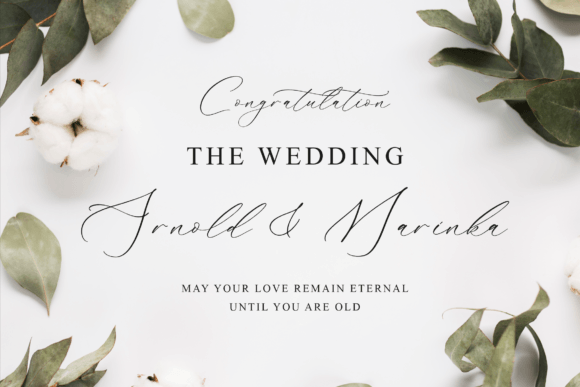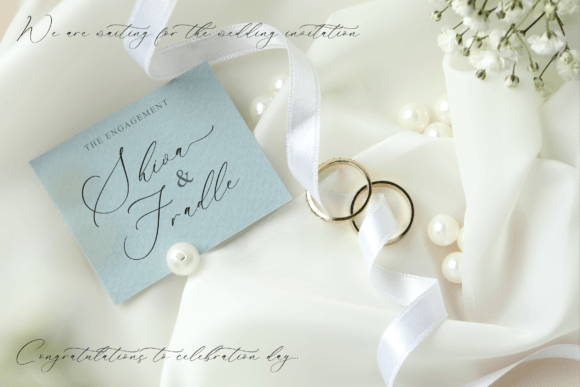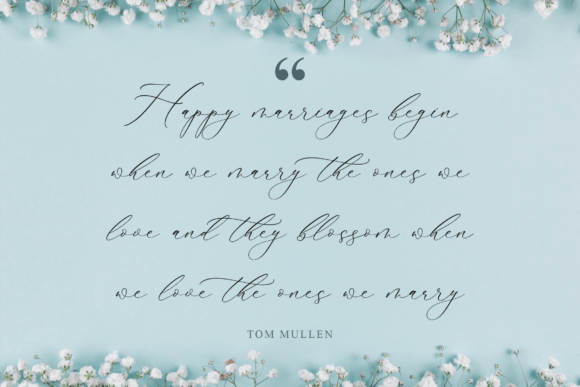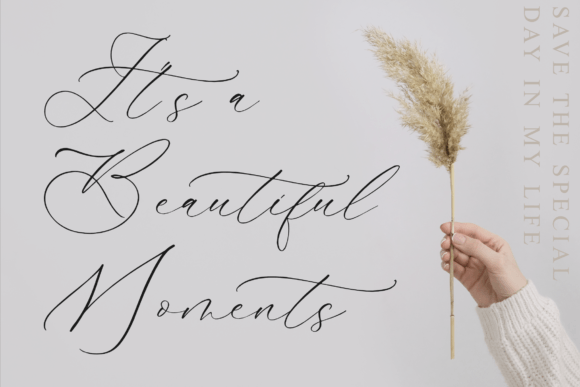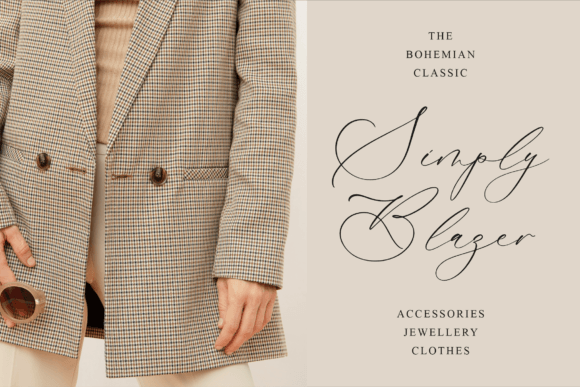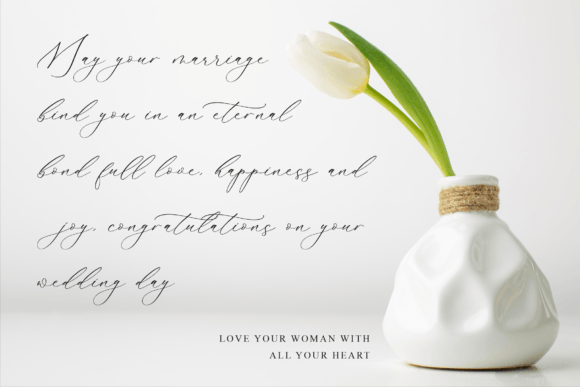
Introducing Gladioss Feather Font: Elevate Your Designs with Luxury and Elegance
In the world of typography, a font can make or break a design. For those seeking to add a touch of luxury and sophistication to their work, Gladioss Feather Font is an exceptional choice. This stunning script font boasts a unique style and modern look, perfect for creating elegant and high-end designs.
What is Gladioss Feather Font?
Gladioss Feather Font is a luxury script typeface that exudes refinement and poise. Its distinctive style is characterized by flowing lines, intricate details, and a modern aesthetic. This font is designed to make a statement, adding a level of sophistication to any design project.
Perfect for Luxury Designs
Gladioss Feather Font is ideal for a wide range of luxury design applications, including:
- Elegant Logos: Create a lasting impression with a logo that embodies luxury and sophistication.
- Book or Movie Title Design: Add a touch of glamour to your title designs, perfect for bestsellers or blockbuster films.
- Fashion Brands: Elevate your fashion brand with a font that exudes style and refinement.
- Magazines: Give your magazine a luxurious feel with Gladioss Feather Font.
- Clothes: Use this font to create stunning labels, packaging, or advertising materials for your clothing brand.
- Lettering: Add a personal touch to your lettering projects with a font that oozes elegance.
- Quotes: Create inspiring and visually stunning quotes with Gladioss Feather Font.
Key Features of Gladioss Feather Font
This luxury script font comes with a range of features that make it perfect for designers and crafters:
- Unique Style: Gladioss Feather Font boasts a distinctive style that sets it apart from other fonts.
- Modern Look: Its modern aesthetic ensures that your designs look contemporary and fresh.
- Elegant Lines: The font’s flowing lines and intricate details add a touch of sophistication to any design.
- High-Quality: Gladioss Feather Font is designed to deliver exceptional results, with high-quality lines and curves.
Why Choose Gladioss Feather Font?
With so many fonts available, why choose Gladioss Feather Font? Here are just a few reasons:
- Stand Out: This font’s unique style ensures that your designs will stand out from the crowd.
- Versatility: Gladioss Feather Font can be used for a wide range of design applications, from logos to lettering.
- Ease of Use: This font is easy to use and pairs well with a variety of other fonts.
Tips for Using Gladioss Feather Font
To get the most out of Gladioss Feather Font, here are a few tips:
- Pair with Simple Fonts: Pair Gladioss Feather Font with simple, clean fonts to create a striking contrast.
- Experiment with Colors: Try out different colors to find the perfect match for your design.
- Pay Attention to Spacing: Make sure to adjust the spacing between letters to create a balanced look.
- Use it Sparingly: Use Gladioss Feather Font sparingly to create a lasting impact.
Gladioss Feather Font is an exceptional luxury script font that can elevate your designs to new heights. With its unique style, modern look, and versatility, this font is perfect for designers and crafters seeking to add a touch of elegance and sophistication to their work. Whether you’re creating a logo, book title, or fashion brand, Gladioss Feather Font is an excellent choice.